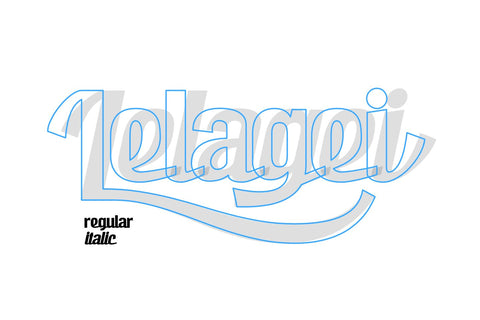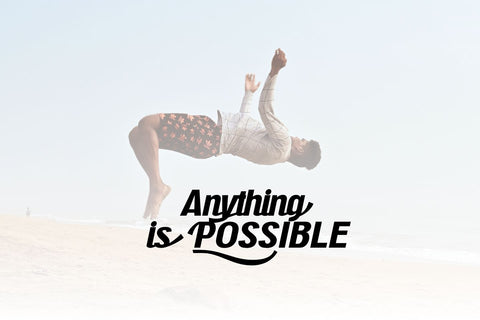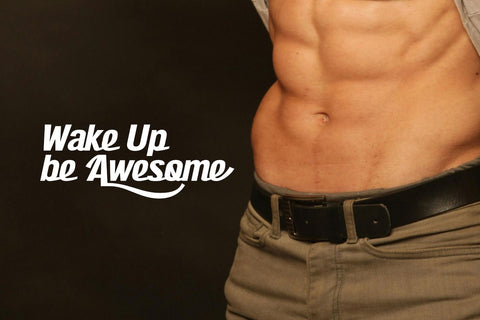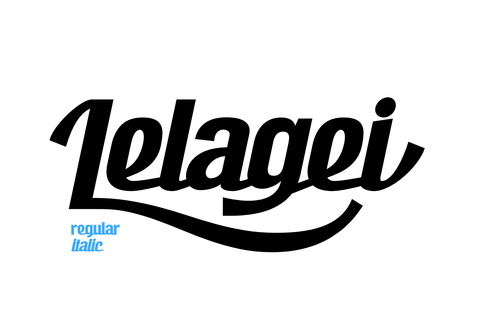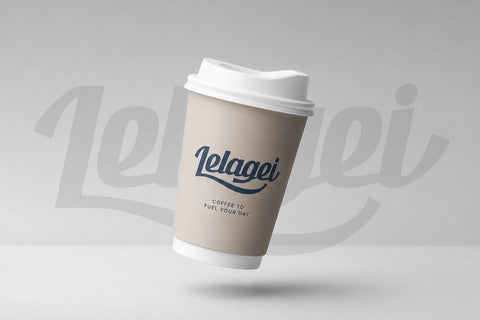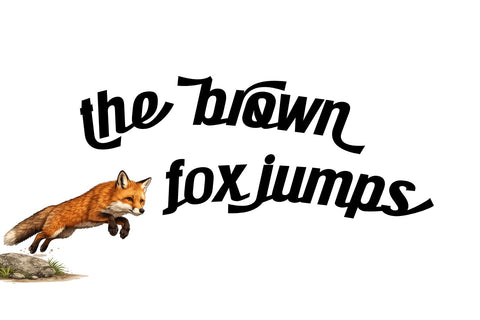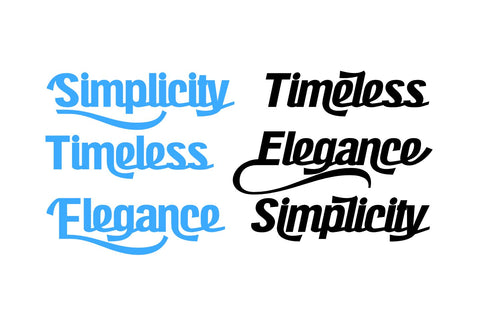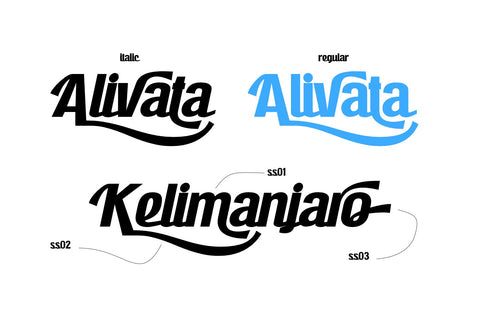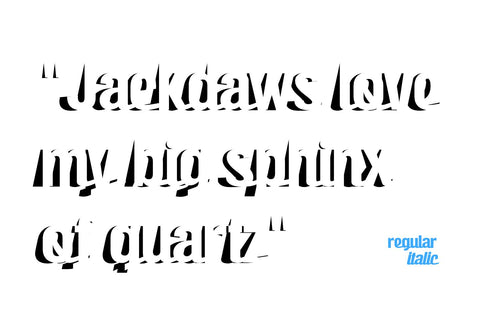
Lelagei
Lelagei is a modern script font that blends smooth curves with a confident, flowing rhythm. Designed to deliver both elegance and personality, it works beautifully across branding, packaging, and editorial use.
With its natural movement and carefully crafted letterforms, Lelagei brings a warm, approachable feel while maintaining strong readability. Perfect for logos, headlines, and any design that needs a touch of charm without losing clarity.